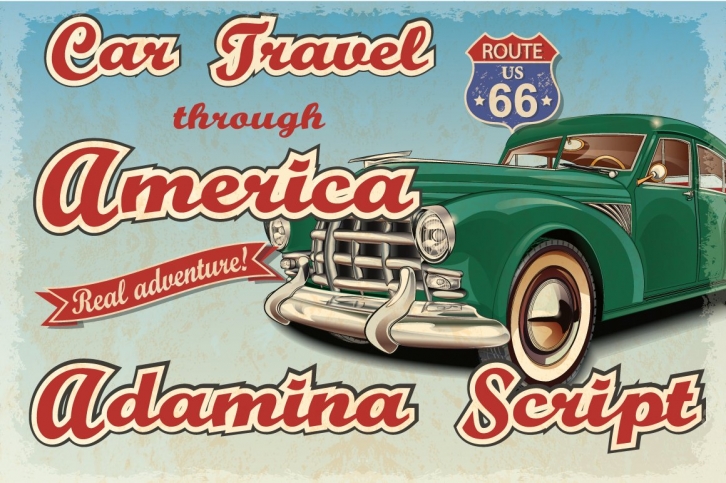
Adamina is a smooth yet sturdy connected script with a polished vintage feeling.Whether on fresh buttermilk, a surfer bar, or a hotel , this preppy script face is versatile and full of character!